Metis
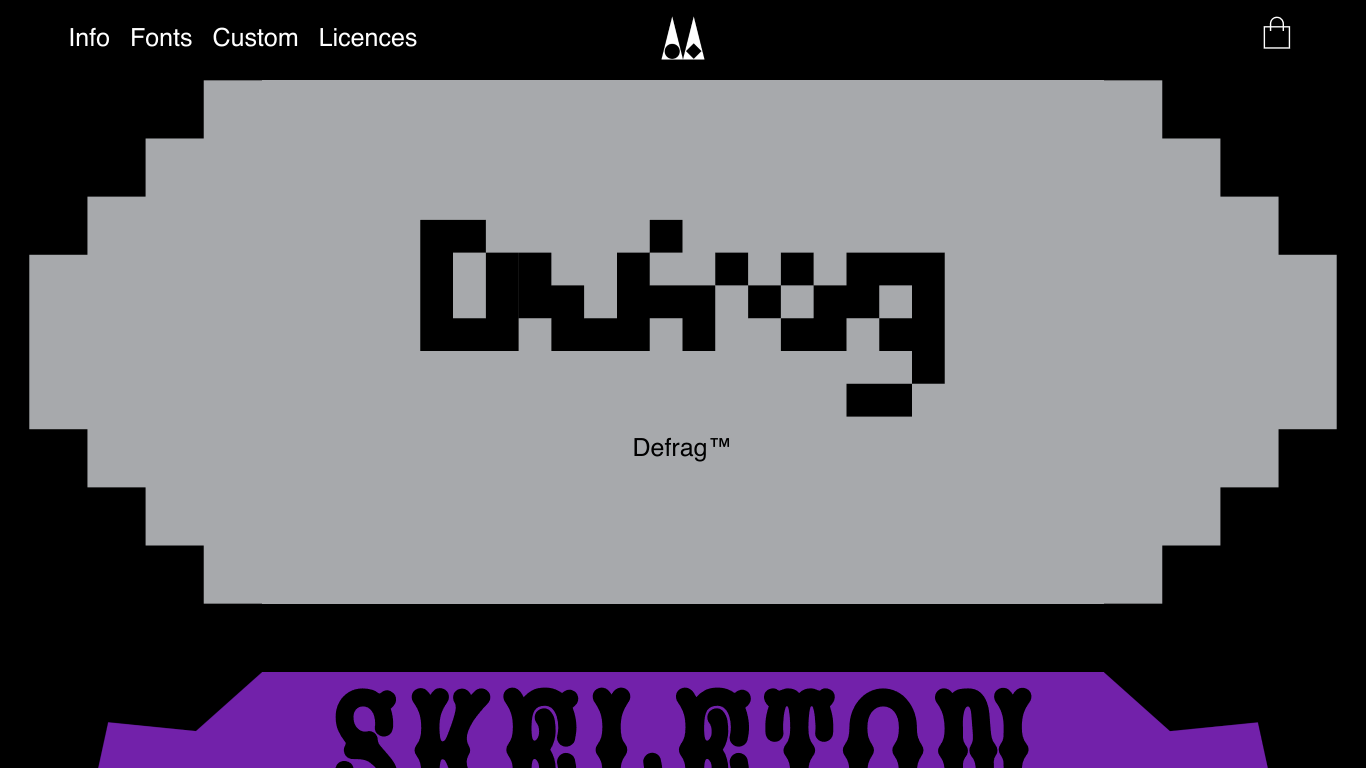
Australia
2018
Metis is a Melbourne-based digital type foundry founded in 2018 by Simon Bent as an extension of the io design company. The foundry specializes in creating visually distinct and expressive typefaces that challenge conventional design norms. Notable works include Dot19, Geometer, LXII, Odd Mono, and Texel. Metis has collaborated with various clients, providing custom typefaces and typographic solutions for diverse design projects.